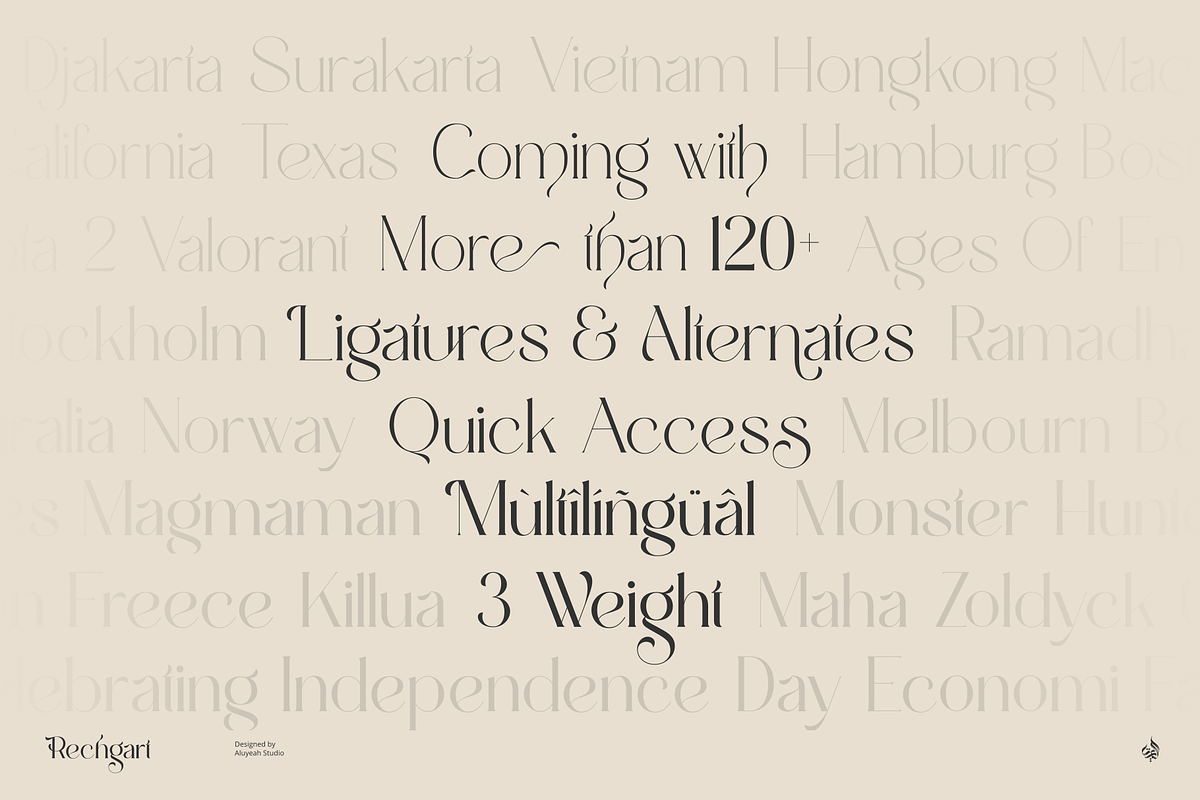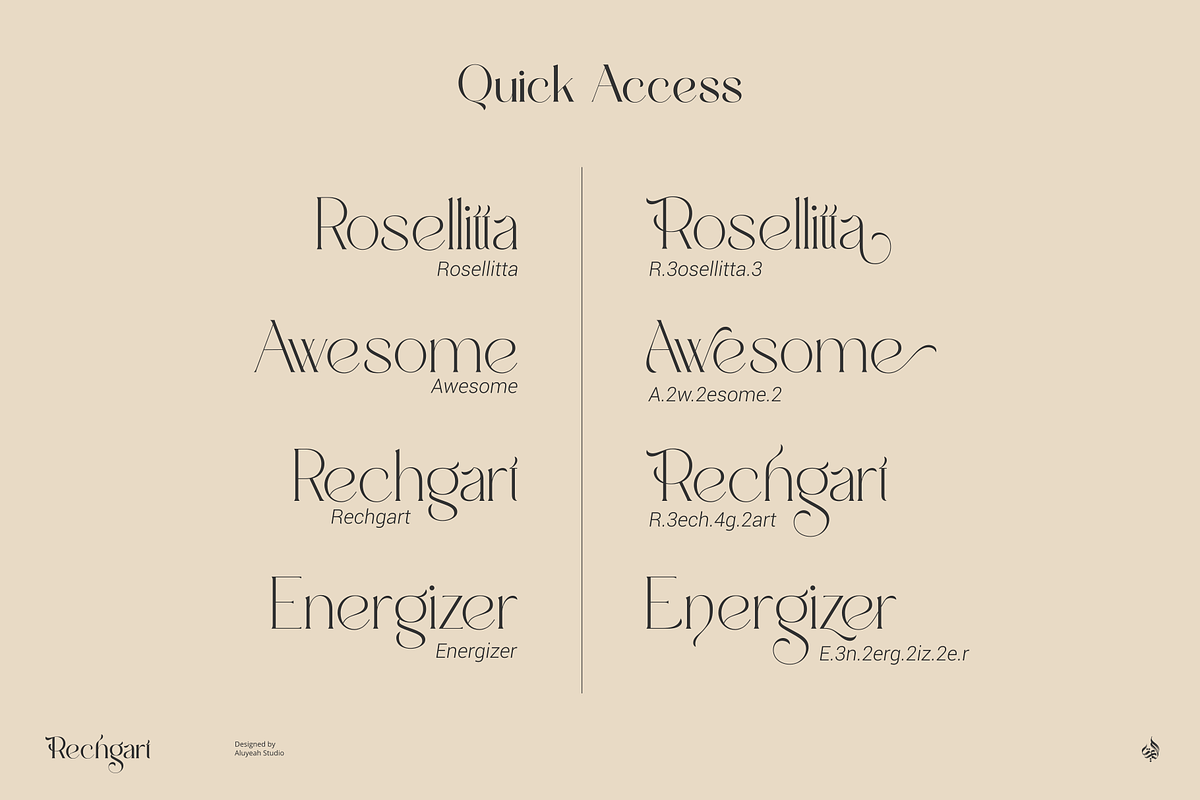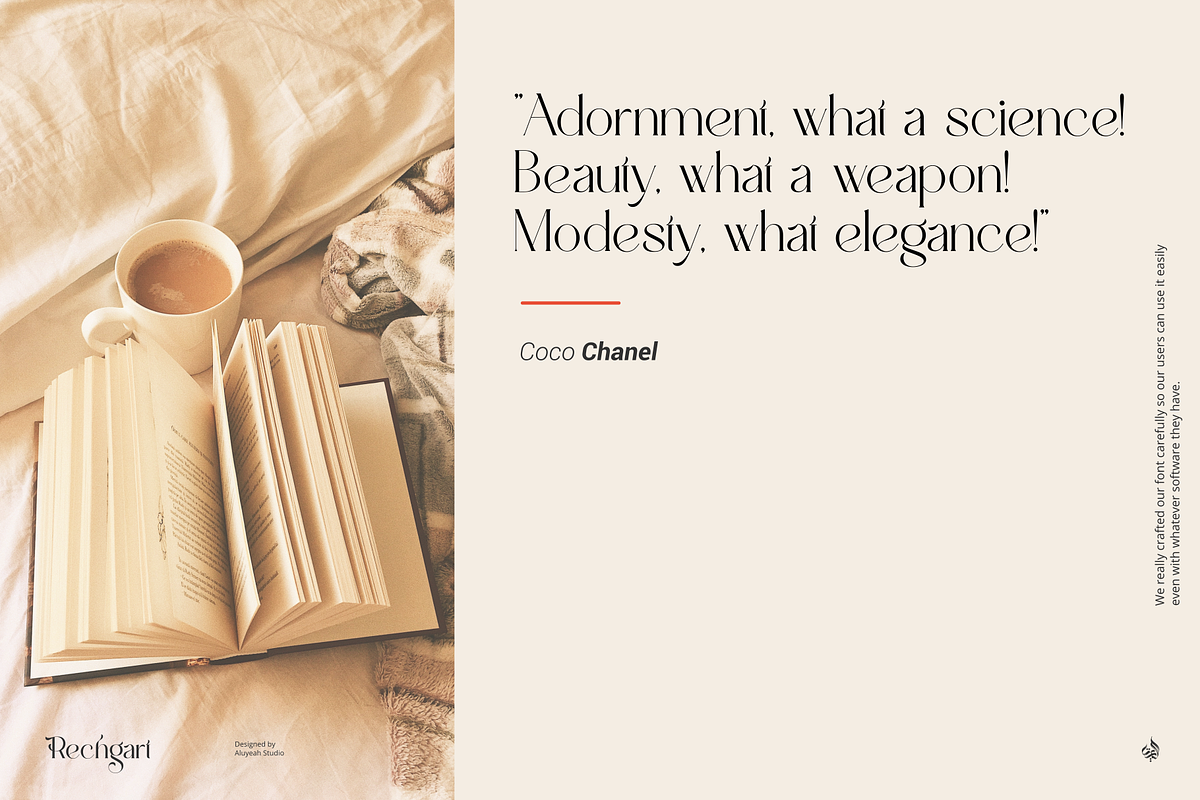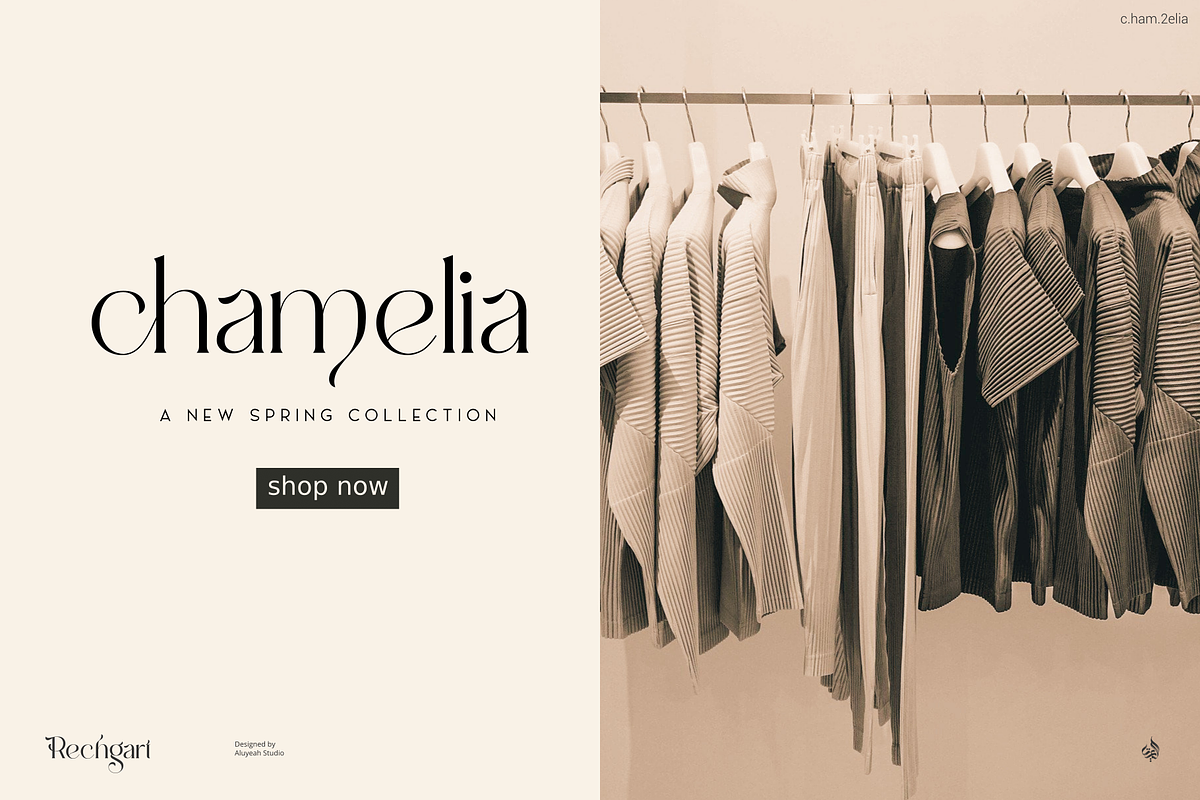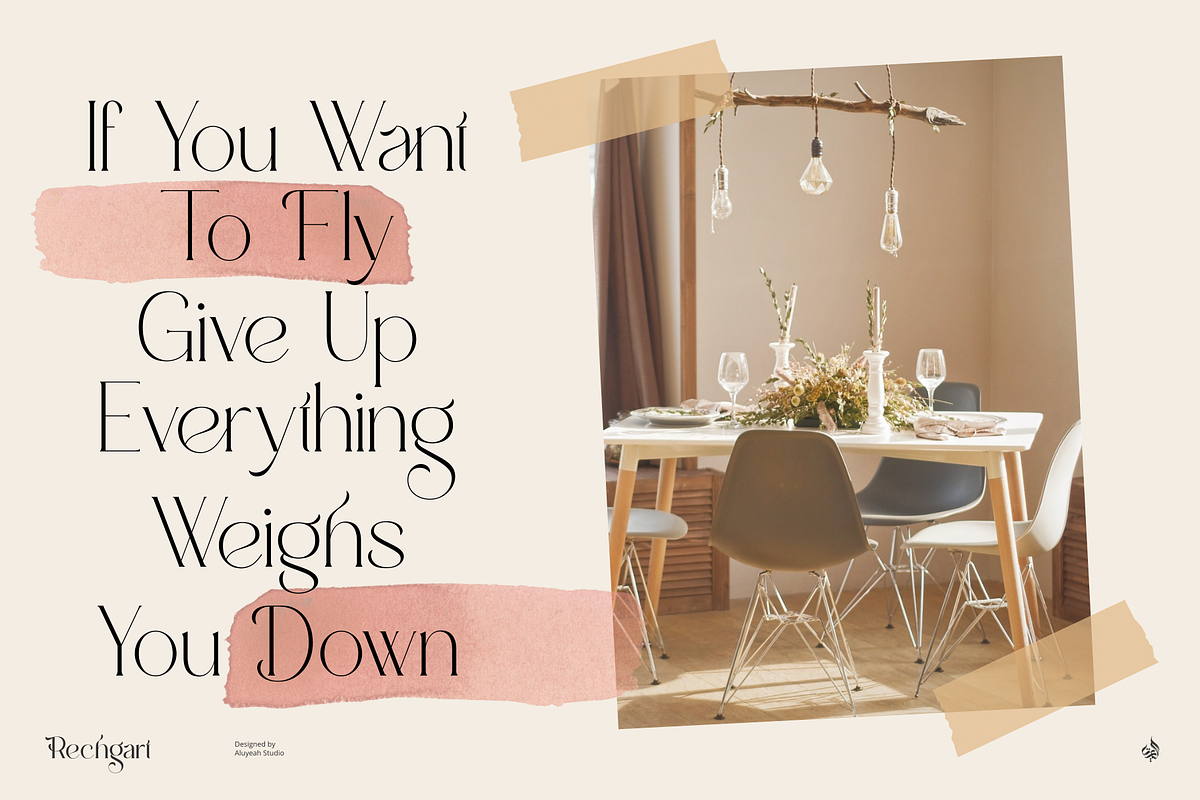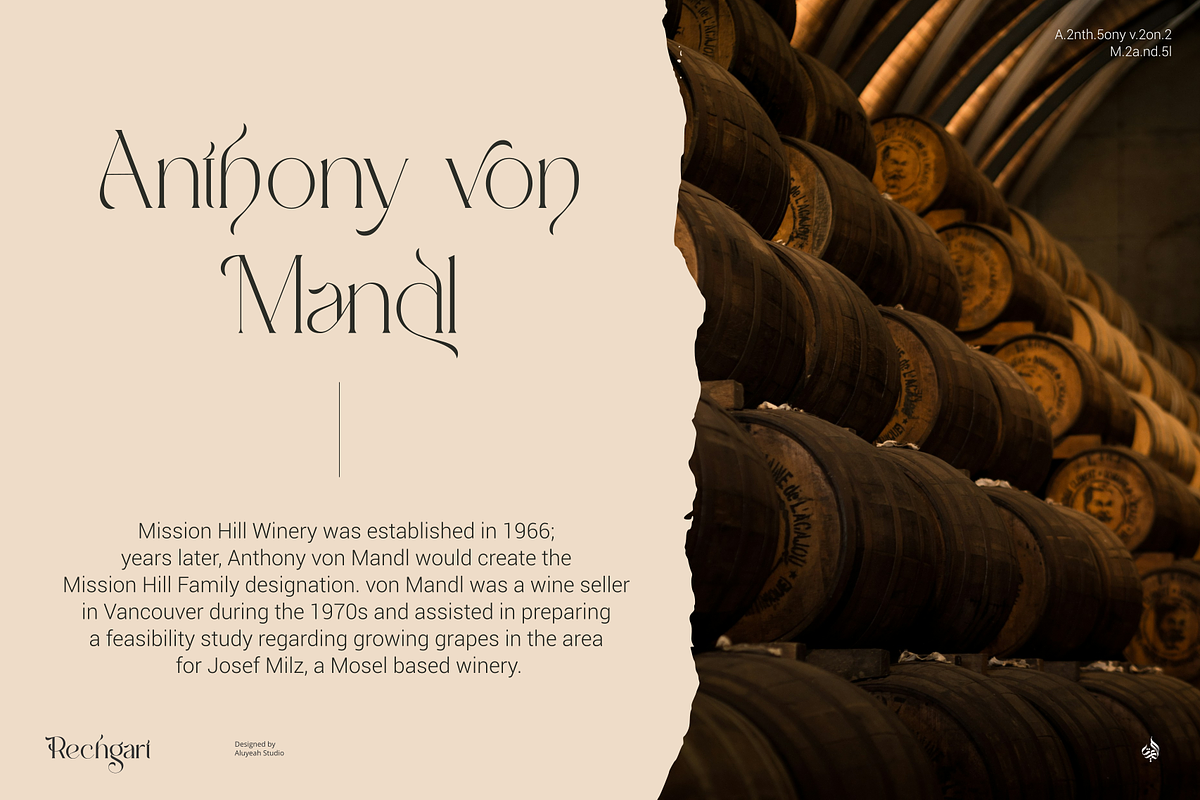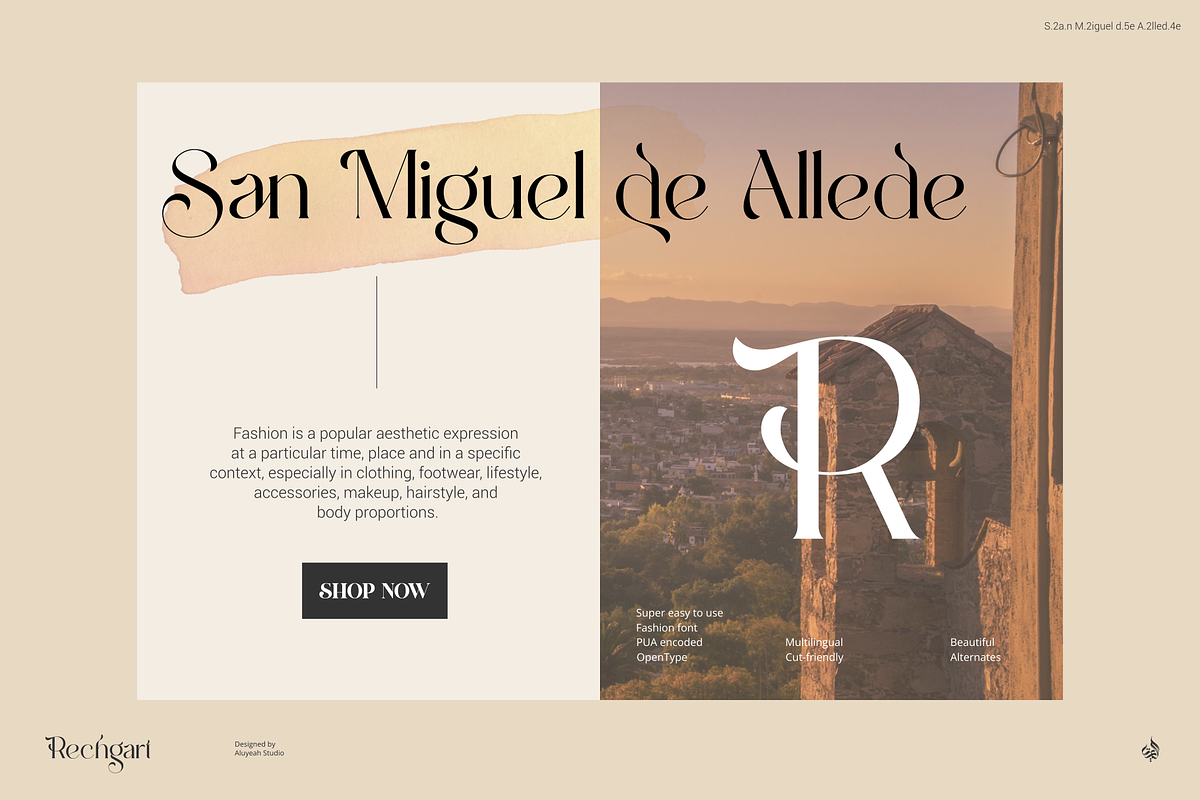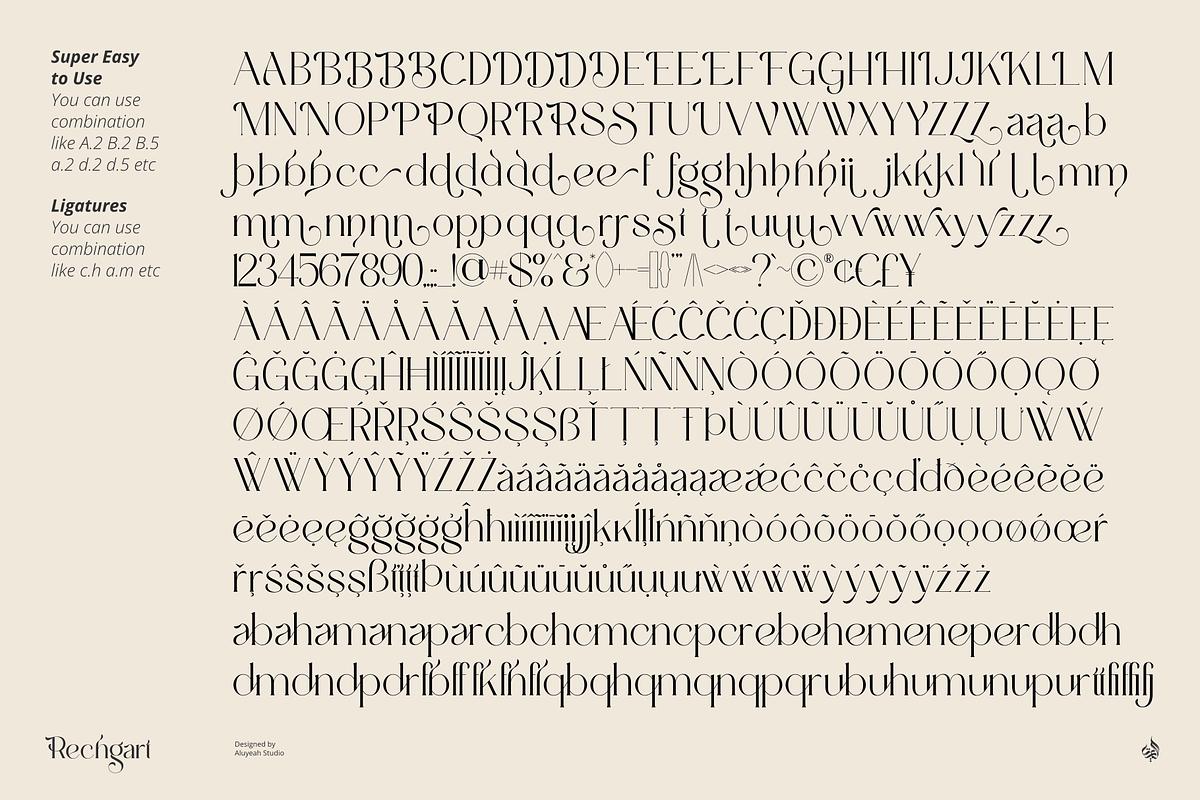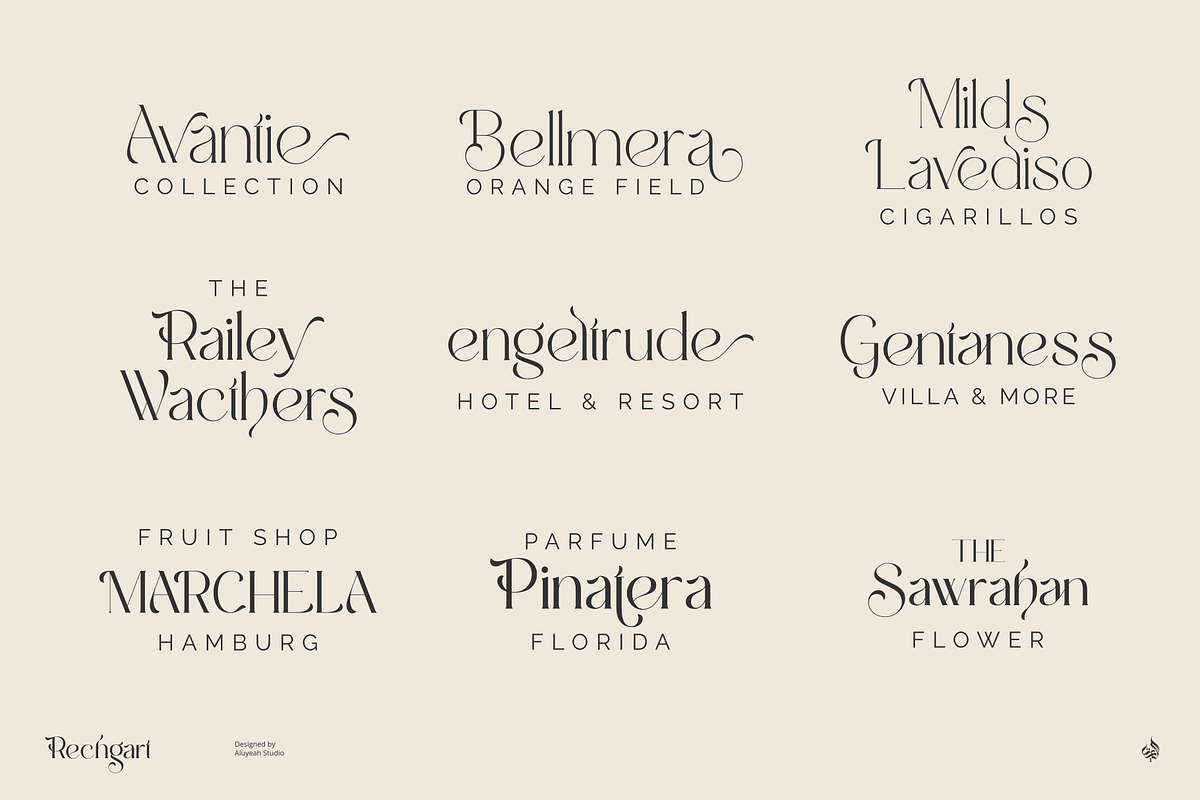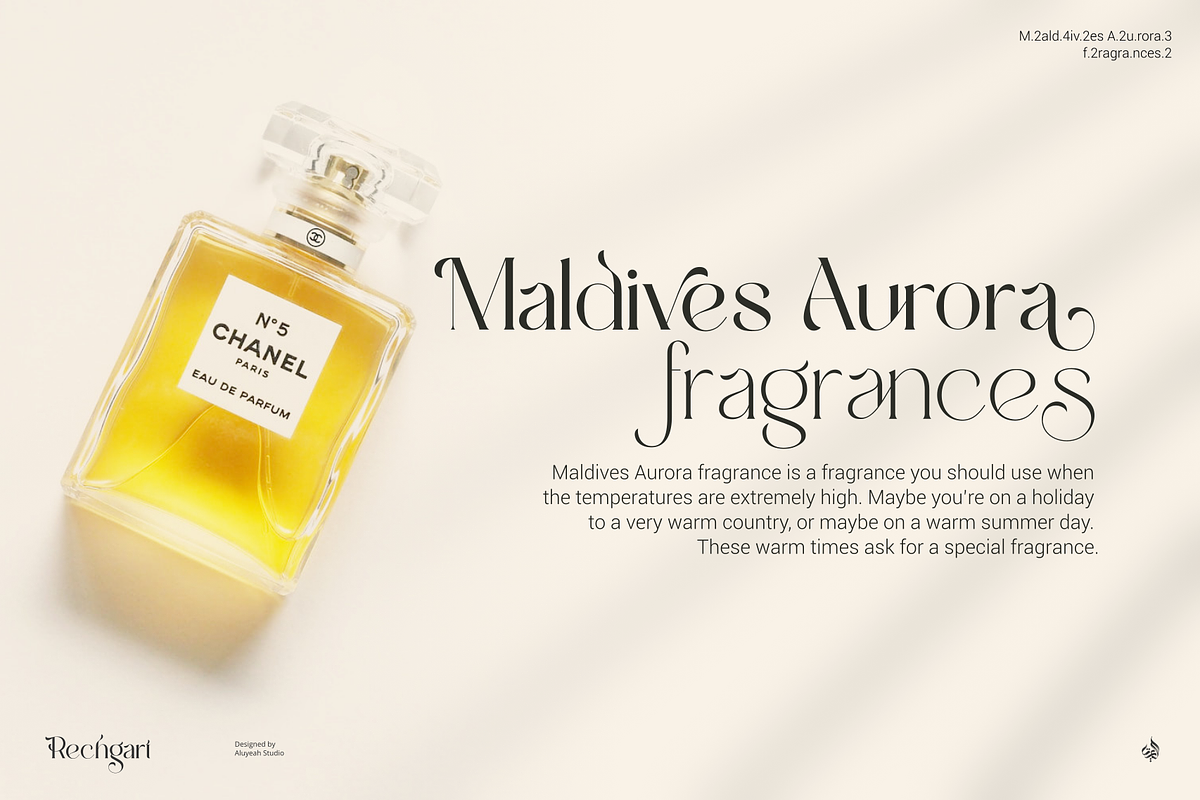
Rechgart
Introducing Rechgart - A Stunning Display Font!
Introducing Rechgart, a stunning display font inspired by the exquisite beauty of bird's feathers. With 120 and more alternates and ligatures, this font offers endless possibilities for your designs. Available in 3 weights with quick access to alternate characters, you can quickly and easily find the perfect match for your project. It will surely add an authentic, beauty, magnificent, unique touch to any design!
- OpenType support
- Multilingual support (67 languages)
- Super Easy to Use alternates - You can easily call alternates using quick access combination like B.2 B.5 d.2 d.5 a.m e.r etc.
To get results like the preview, in the design software you use, select this font then just write R.3ech.4g.2art